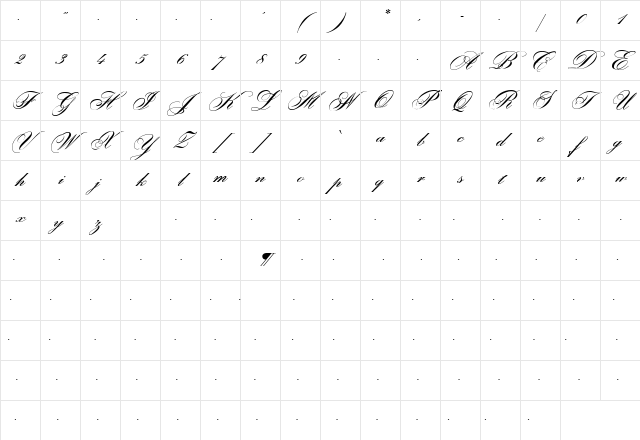
OfficeScriptDT ItalicBold
Style: ItalicBold
Foundry: DTP Types Limited
Design Context for OfficeScriptDT
OfficeScriptDT flows with the natural rhythm of handwritten lettering, making it ideal for designs that call for warmth and personal expression. Its bold stroke weight gives it real presence on the page.
Font Pairing: Combine OfficeScriptDT with a simple geometric sans for maximum contrast - the tension between flowing curves and clean structure is a classic typographic pairing.
Pro Tip: Use OfficeScriptDT for short runs of text - names, titles, or taglines. Extended body copy in script faces tires the eye quickly.